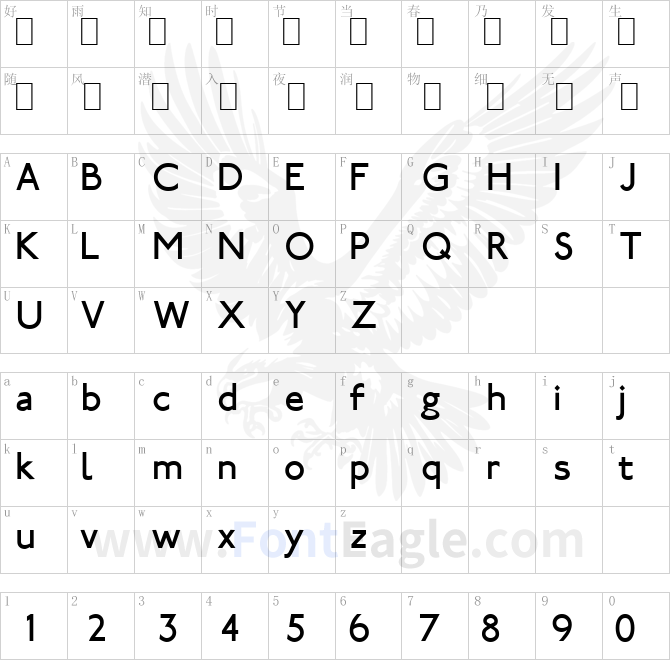
- Font name:London Tube
- Font Copyright:Jonathan Paterson 1994. Alphabet characters based on Edward Johnston’s London Underground type designed for London Transport in 1915.